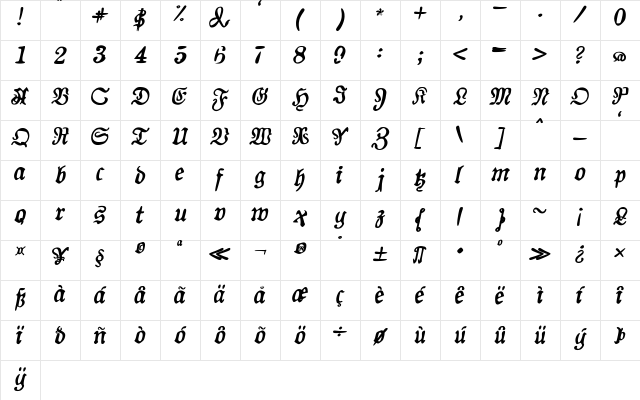
Complete AuldMagick Bold Italic glyph index. Displaying only characters natively supported by AuldMagick Bold Italic font.
AuldMagick is a composed and adaptable typeface that performs quietly and consistently across a wide range of design contexts. The slanted form adds forward momentum and visual energy. Its bold stroke weight gives it real presence on the page.
Pro Tip: Use AuldMagick for emphasis, pull quotes, and subheadings where its slanted energy can add rhythm to the layout.